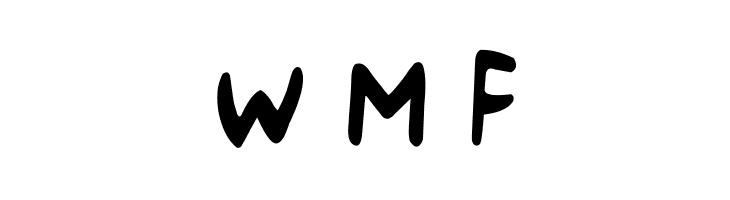
Snow Fairy Font
Font by Khurasan
A playful, hand-drawn font with bold strokes and a whimsical style.
A display font using graphic illustrations for each character.
FrazettaBats1 Font
Font by bob istheowl http://luc.devroye.org/bobistheowl.html
Illustrative font with fantasy-themed scenes for each character.
ObeyPotpourri Font
Font by bob istheowl http://luc.devroye.org/bobistheowl.html
Graphic, illustrative font with each character as a distinct artwork.
ObeyPatterns Font
Font by bob istheowl http://luc.devroye.org/bobistheowl.html
Ornamental font made of complex, patterned glyphs.
Fairies Revealed Font
Art Designs by Sue
A whimsical, fairy-themed decorative font with intricate embellishments.
ObeyGiantPosterCondensed Font
Font by bob istheowl http://luc.devroye.org/bobistheowl.html
A bold, condensed display font with a dynamic urban style.
Gypsy Tarot-Minor Arcana Font
Font by bob istheowl http://luc.devroye.org/bobistheowl.html
Ornate, vintage serif font with bold, high-contrast strokes and decorative details.
Obey3DAlt Font